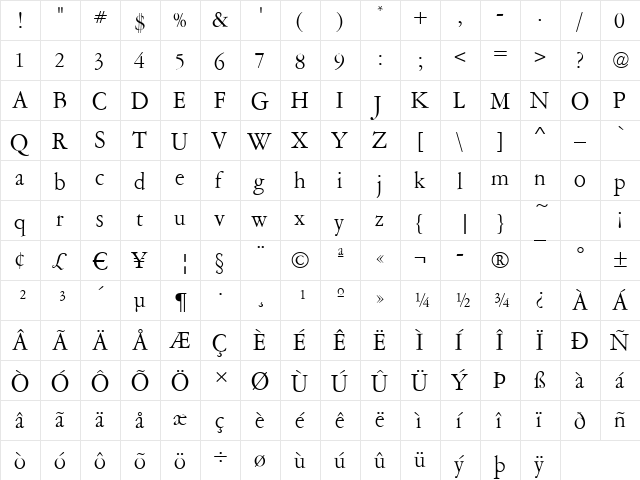
Amsterdamer-Garamont Regular
Design Context for Amsterdamer-Garamont Typeface
Amsterdamer-Garamont offers clean, dependable letterforms without strong stylistic allegiance, making it a practical choice for designers who need flexibility.
Pro Tip: Use Amsterdamer-Garamont in both headline and body roles to test its range before committing to a single application.